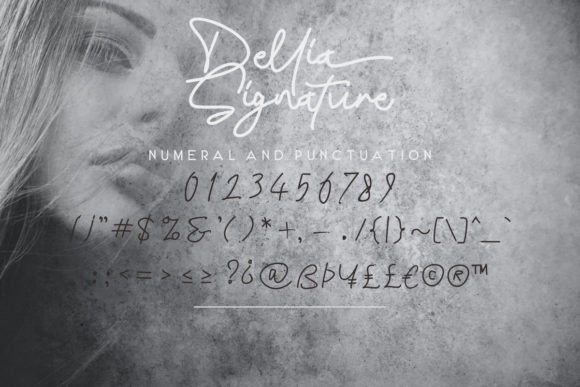
About Dellia Signature Font
Dellia Signature is a beautifully crafted, refined, and modern script font. Dellia Signature is perfect for coloring all your products, especially logotypes, wedding invitations, and other elegant designs. It will add a touch of love to your items, making them look more beautiful and sophisticated!